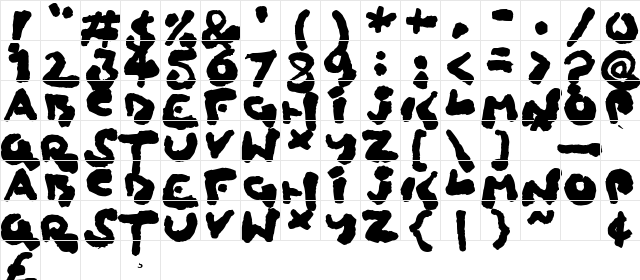
Childlike Blobs Regular
Design Context for Childlike Blobs Typeface
Childlike Blobs trades formality for fun, with bouncy, characterful letterforms that bring warmth and energy to any project.
Font Pairing: Pairs well with a rounded or humanist sans for body copy, maintaining the friendly tone without relying on Childlike Blobs to carry extended reading.
Pro Tip: Avoid using Childlike Blobs for long passages of text — it works best for headlines, labels, and short calls to action.